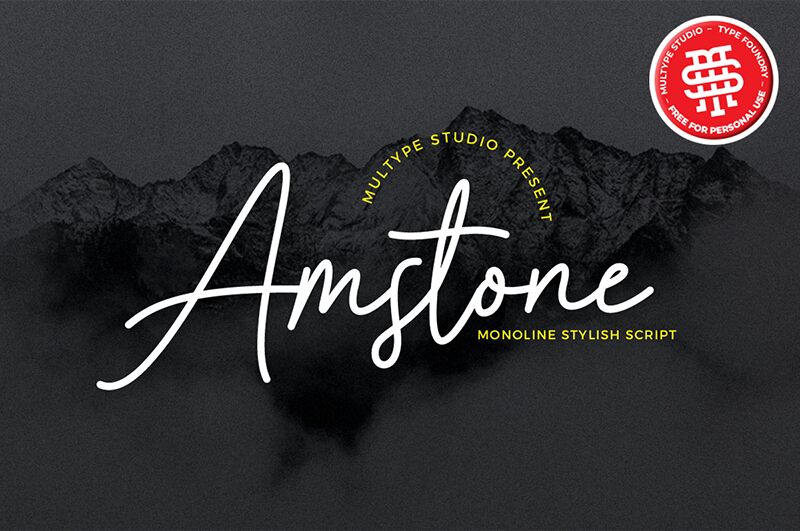
Amstone
Amstone, crafted with care by Multype Studio, embodies the essence of a personal touch in its light handwritten script. This monoline stylish font unfurls with elegance and natural grace, making it an exquisite choice for designers aiming to infuse their projects with a bespoke, artisanal feel. Tailored to elevate photography and watermarking, Amstone's charm also resonates through social media posts and advertisements where personality is paramount.
Its suitability extends to logos, branding initiatives, invitations, and product designs-ensuring your label or stationery speaks volumes without uttering a single word. The delicate balance of style within Amstone makes it ideal for wedding designs and product packaging. This font truly shines in settings that demand a stroke of sophistication coupled with the heartfelt warmth of handwriting. Embrace the versatility of Amstone for any creative endeavor that seeks to stand out with understated confidence and timeless appeal.